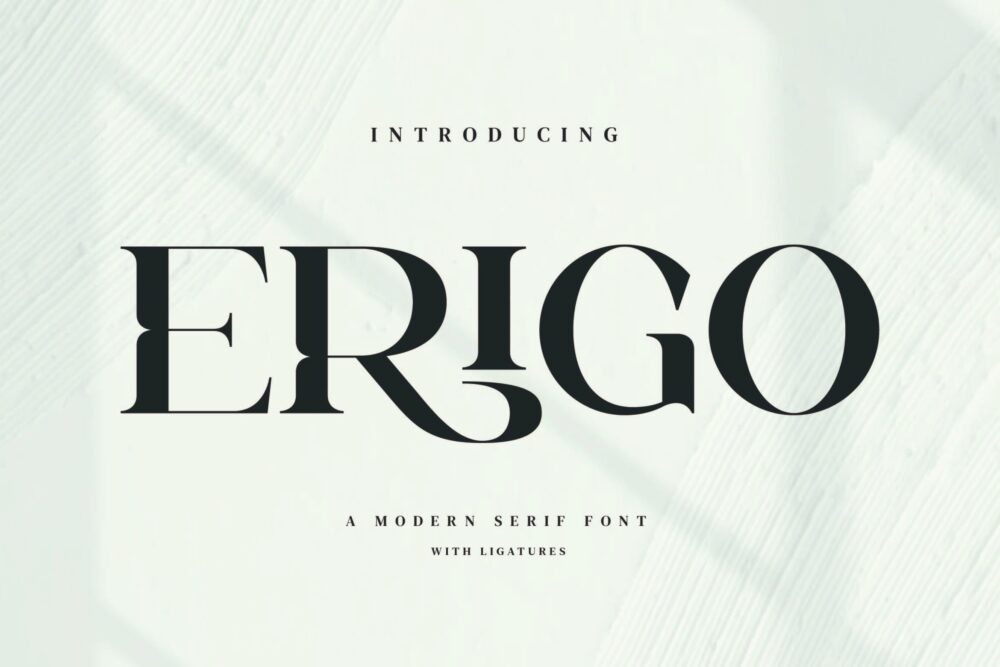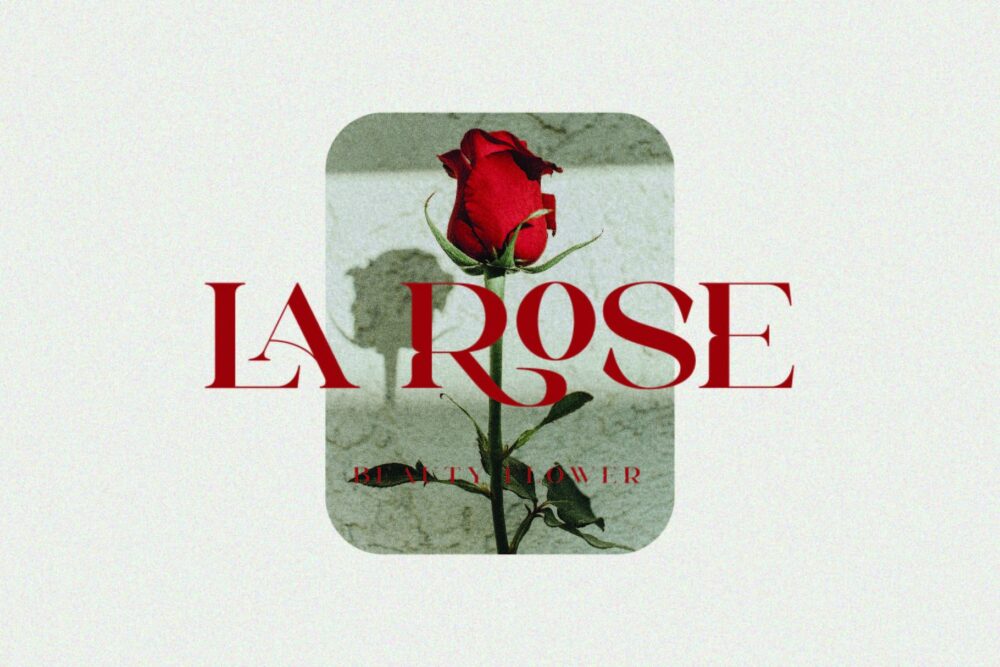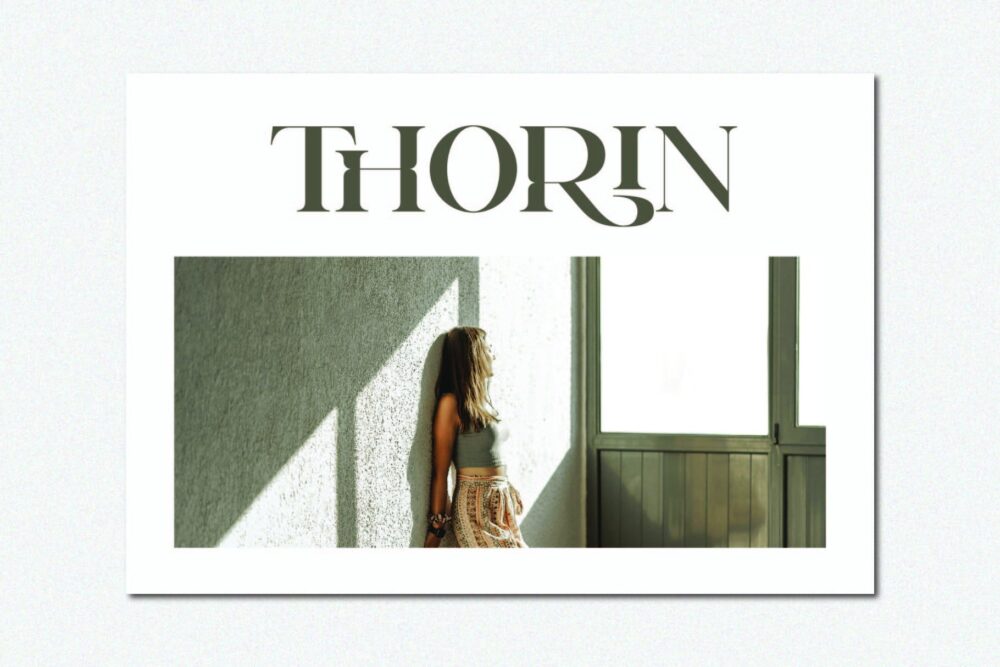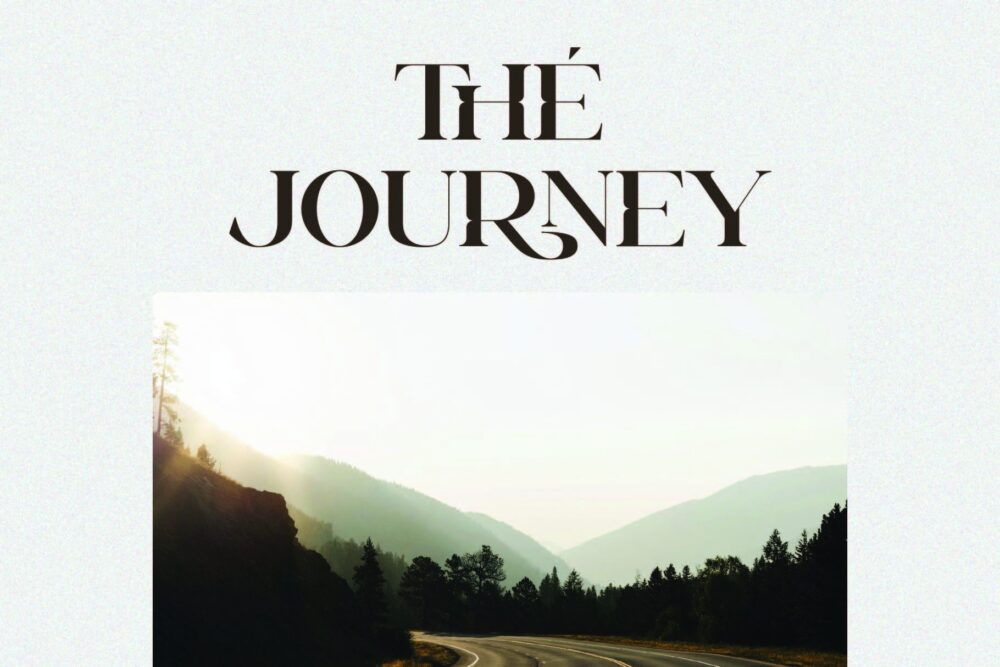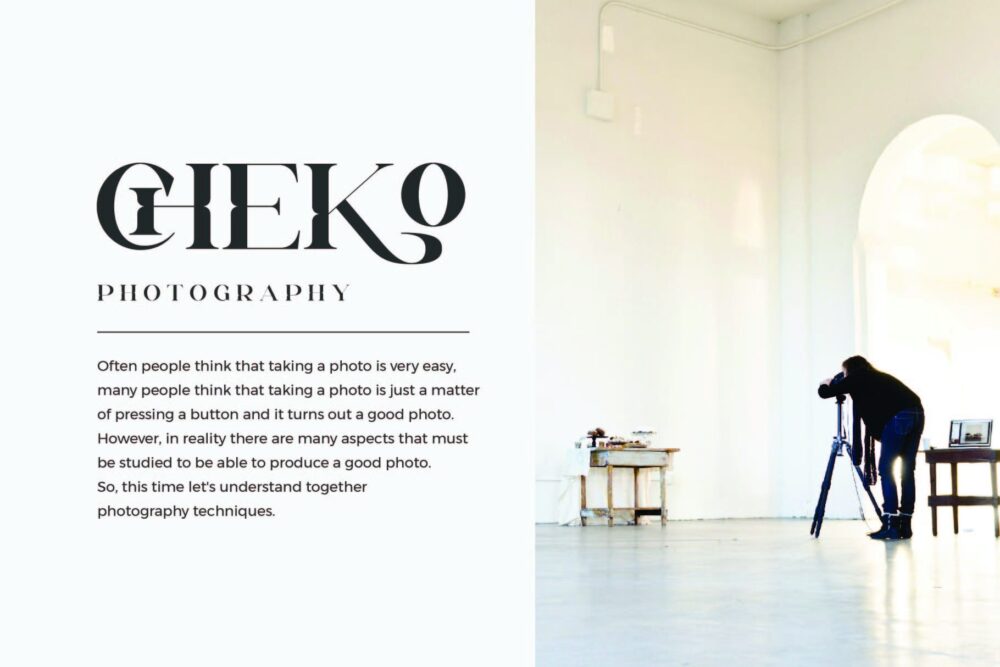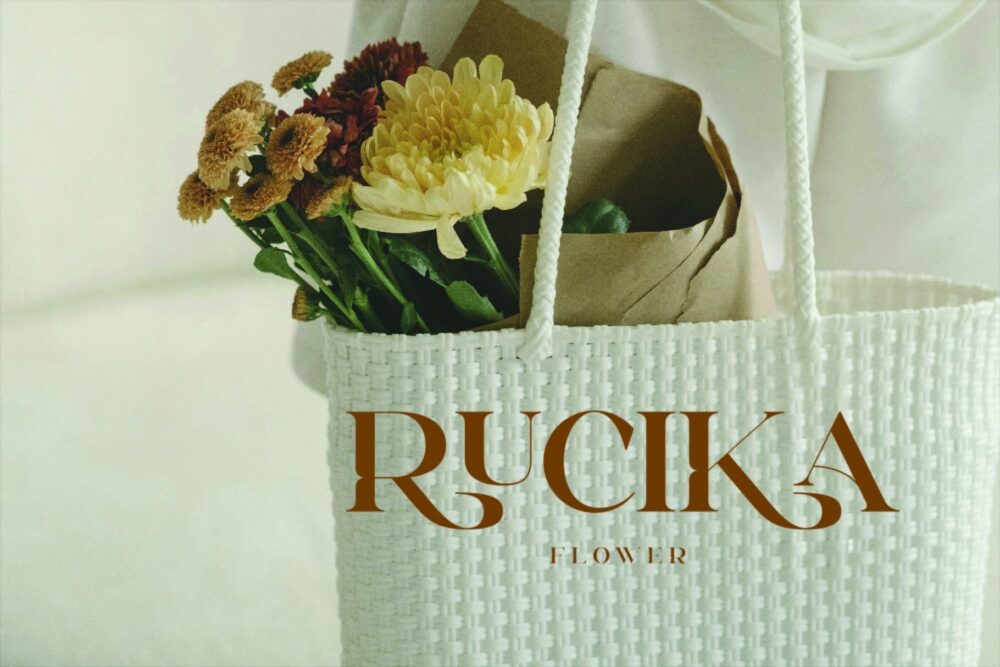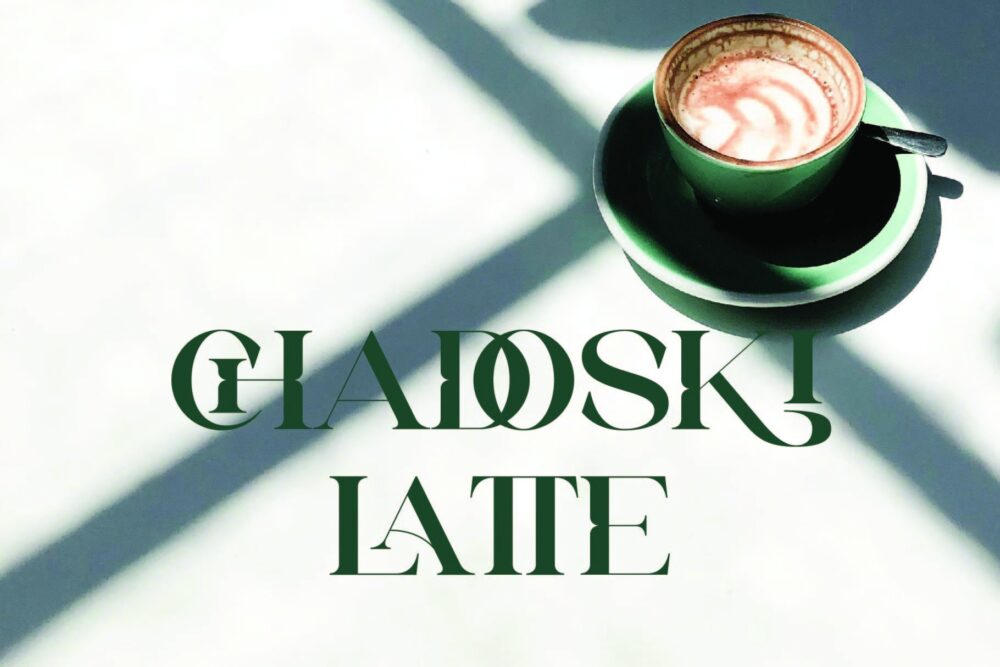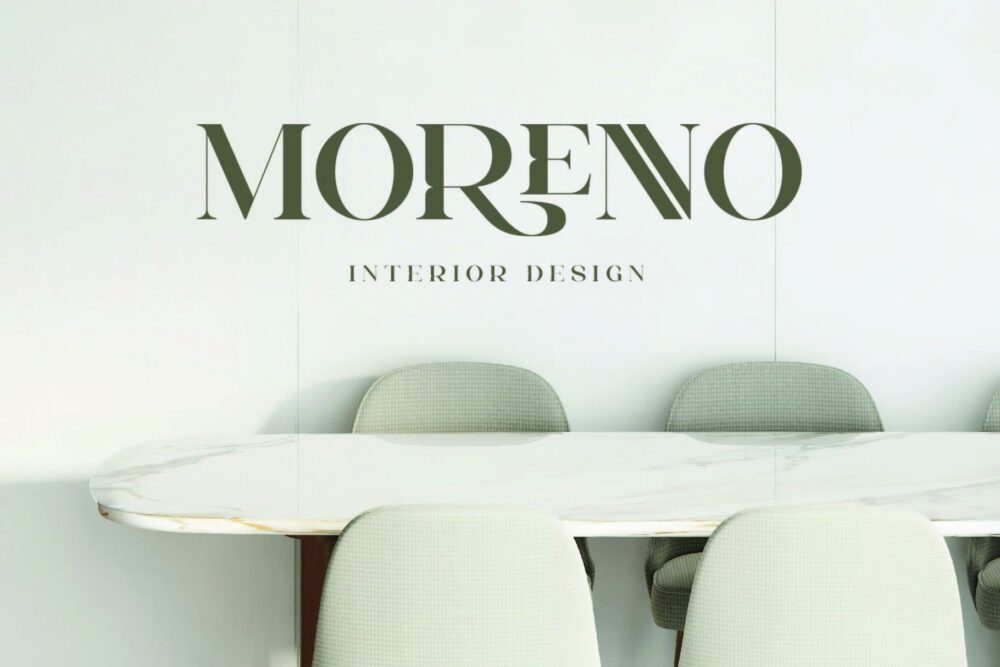
Erigo Stylish Ligature Typeface, inspired by the famous minimalist logo perfect for the purposes of designing templates, brochures, videos, advertising branding, logos and more.
Erigo – Modern Serif Font